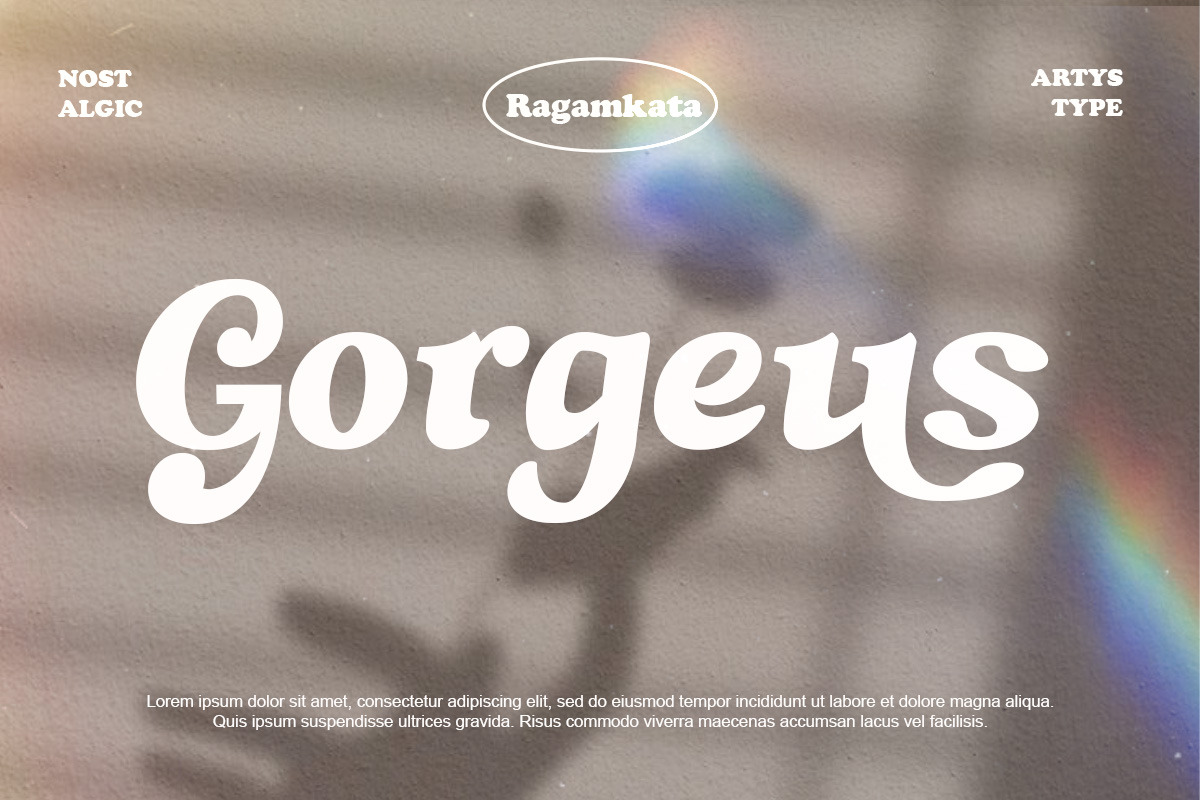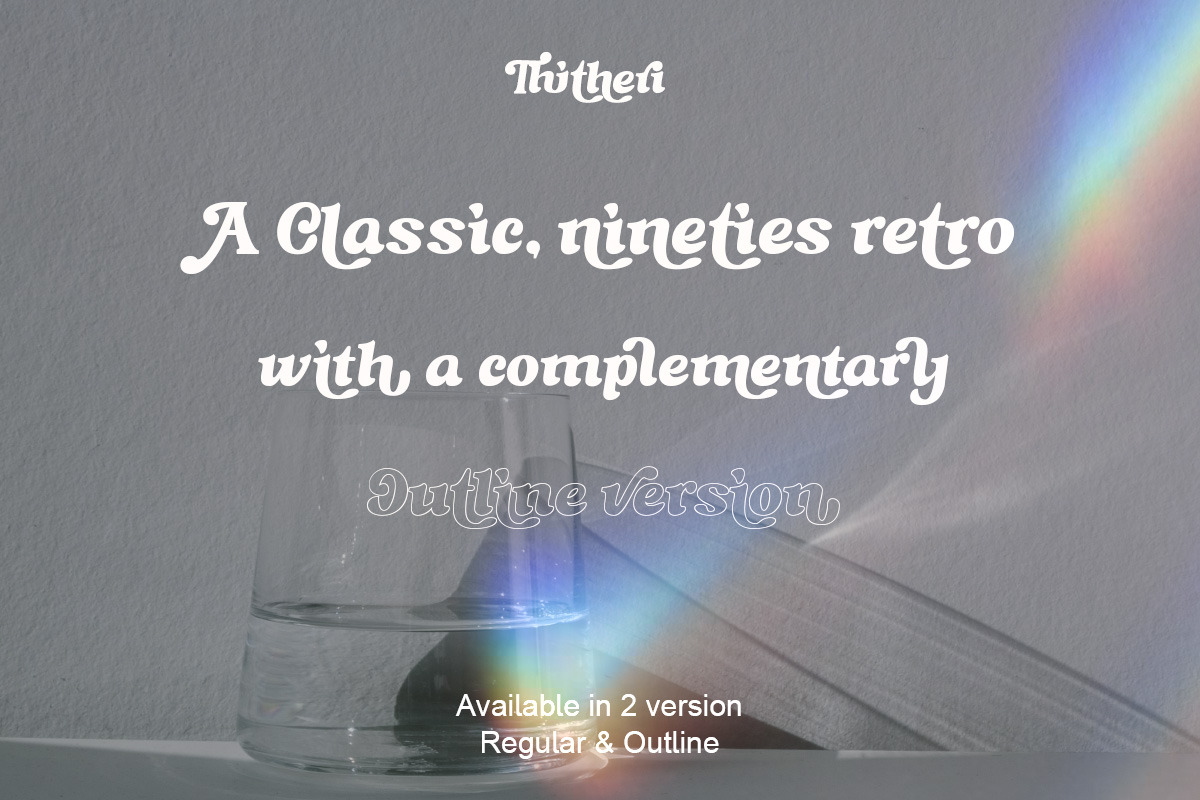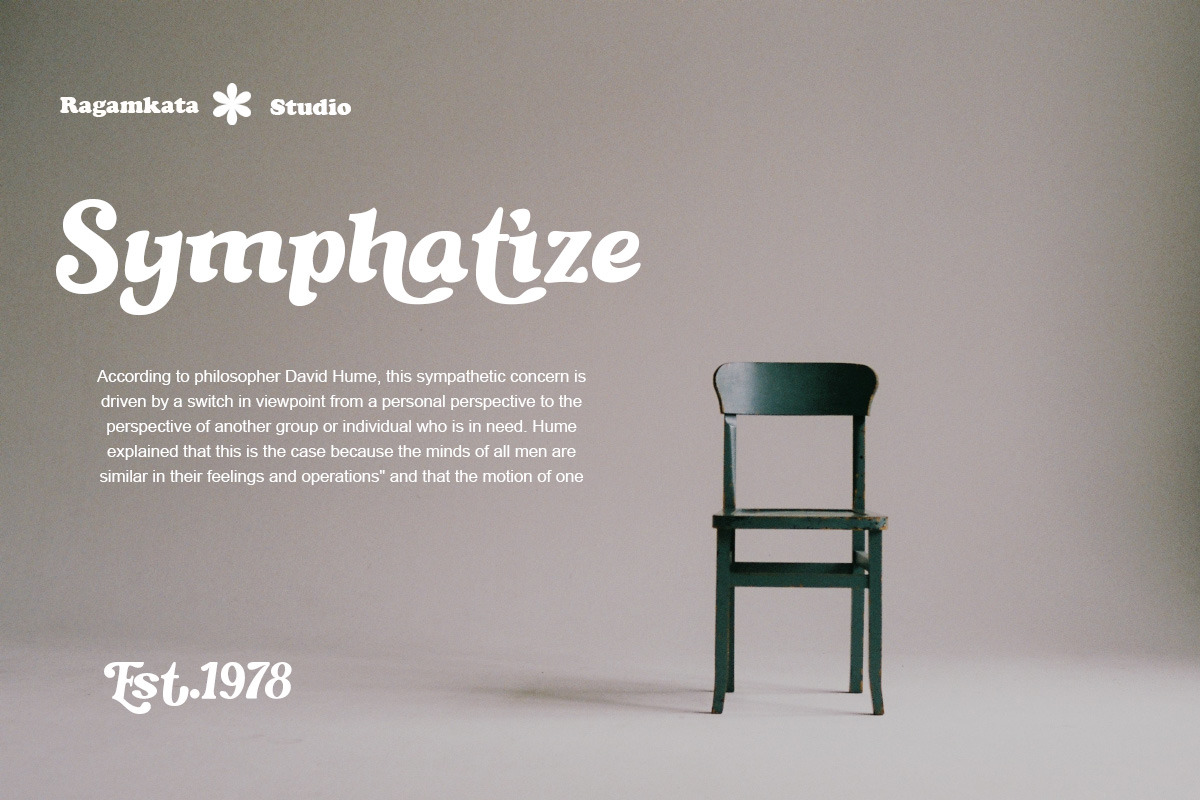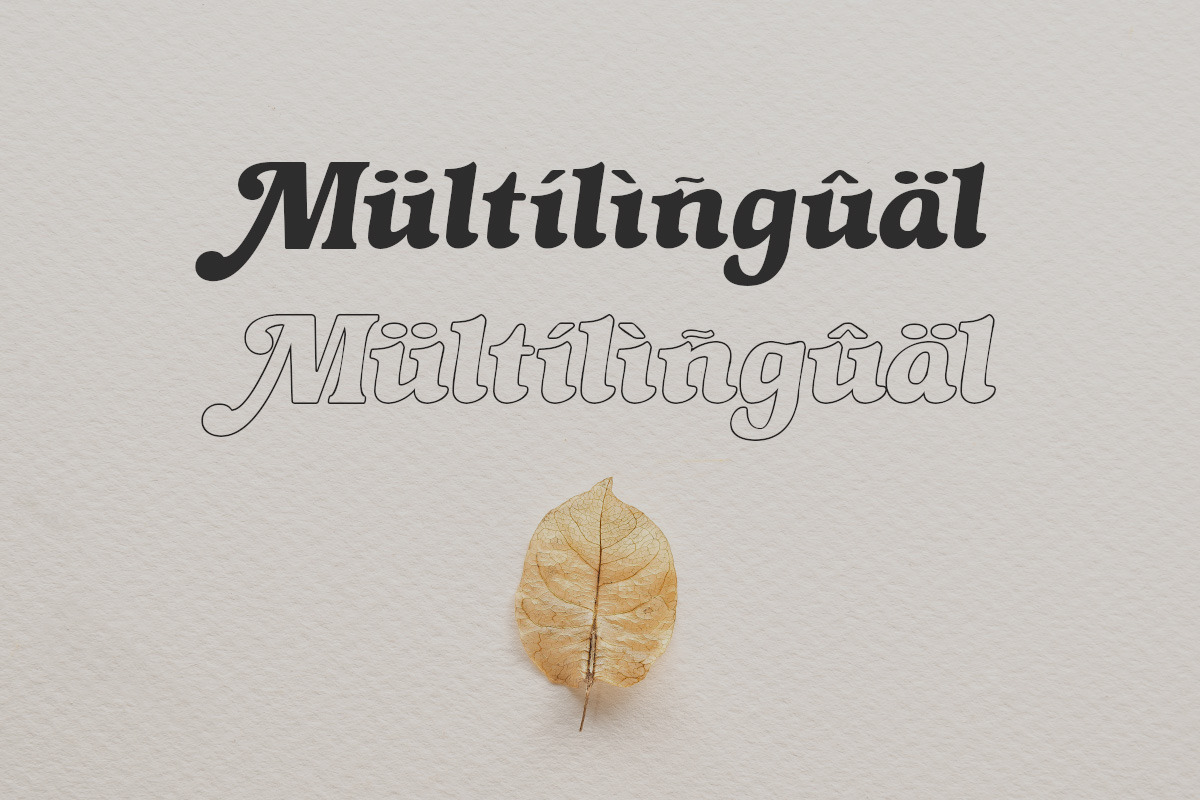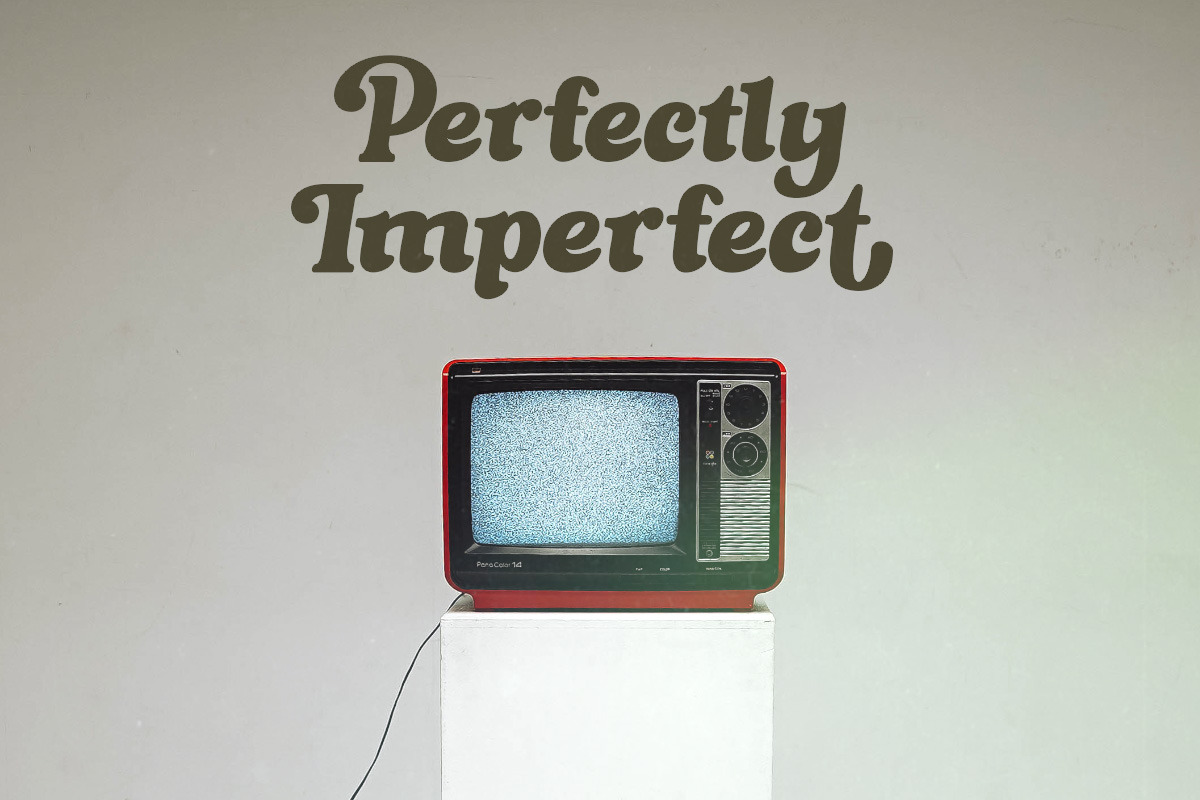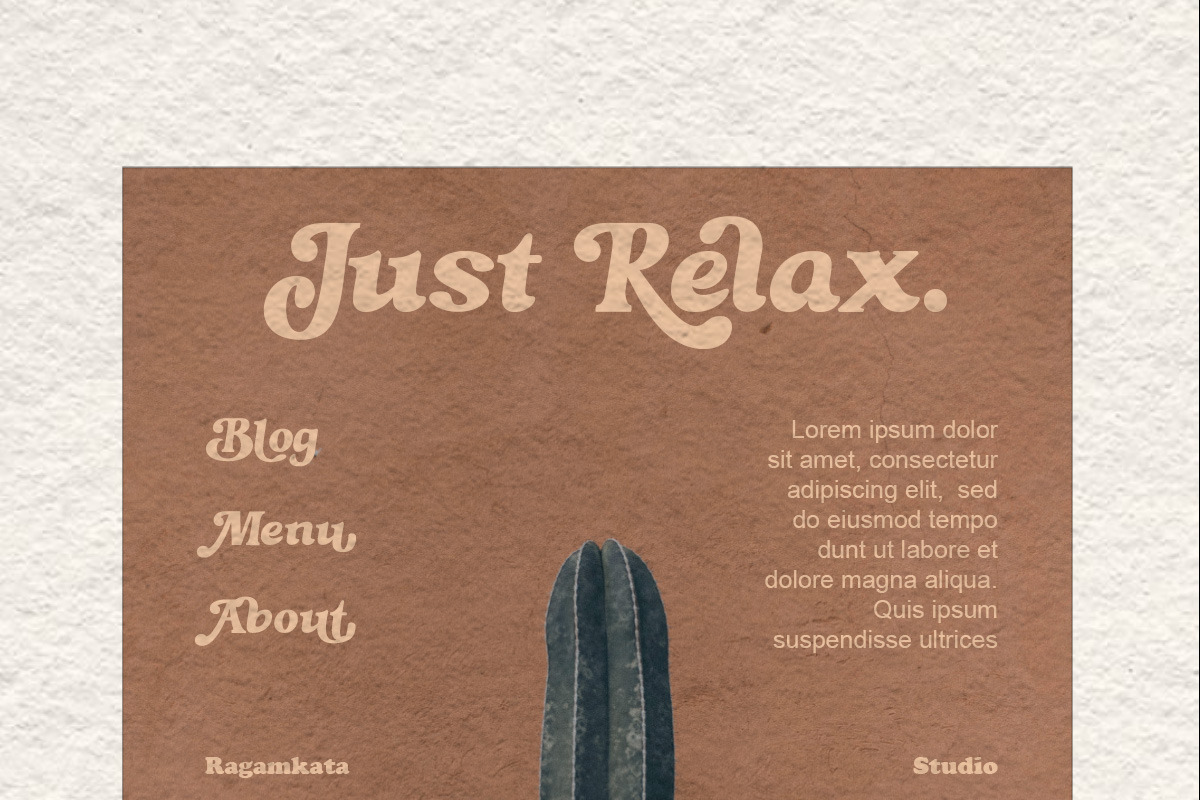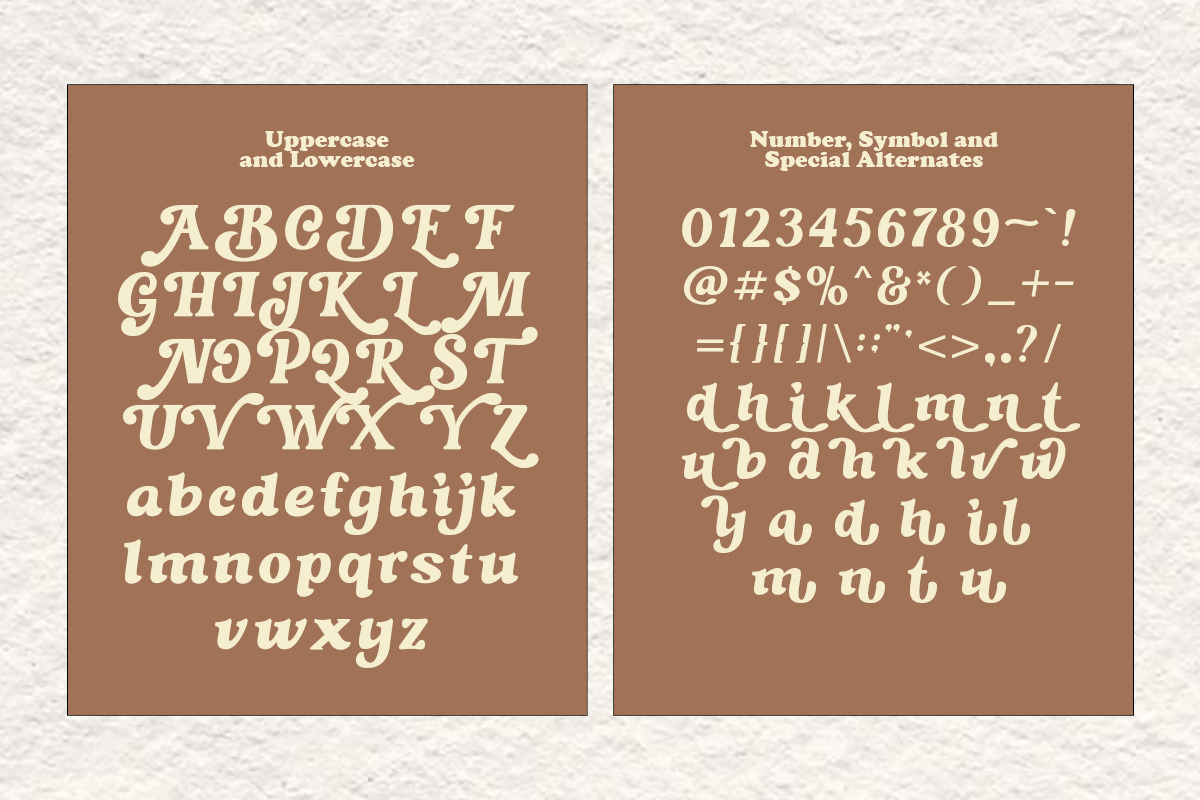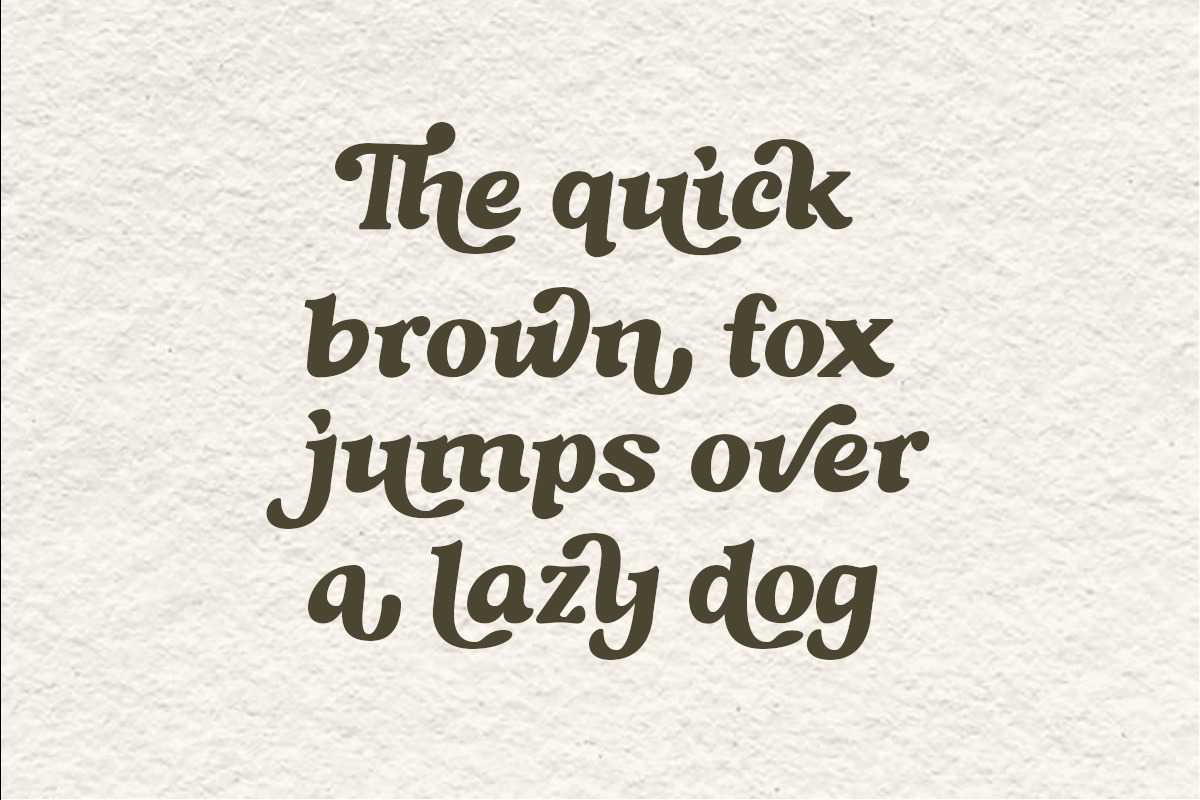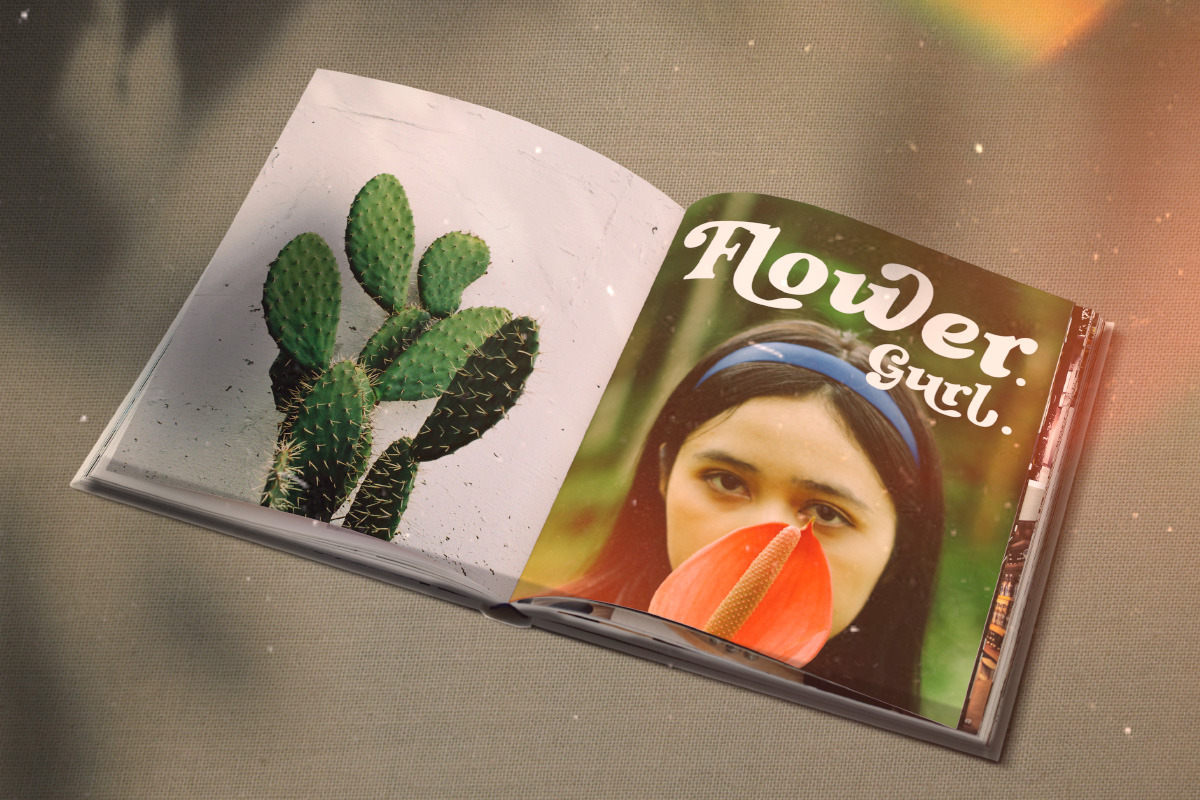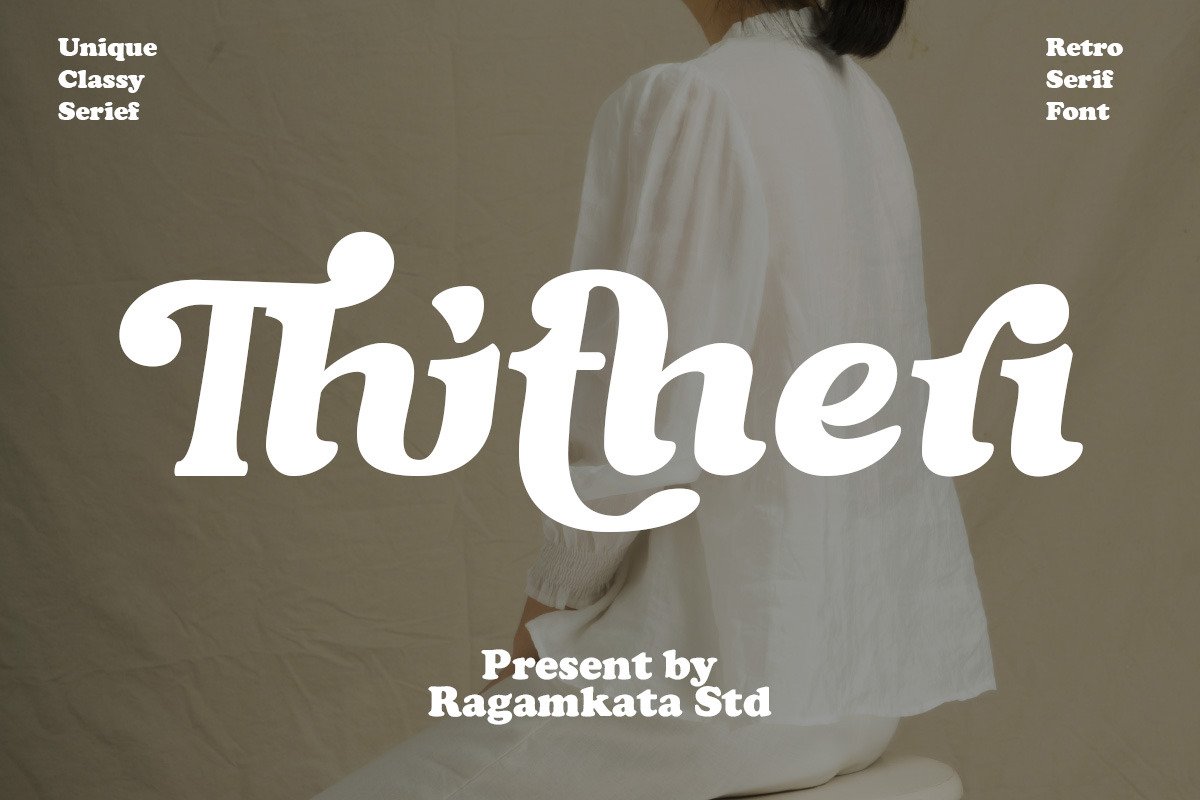
Thitheri - Modern Retro Typeface
Introducing Thitheri – the font that's here to infuse your creative projects with a delightful '70s retro charm!
Thitheri also includes a unique set of 26 special alternates. These alternates provide you with even more creative freedom and versatility for your projects.
- Has 2 Styles: Regular and Outline